18 Playful Bubble Decorative Font Picks to Transform Your Next Layout
Every now and then, a design project comes along that screams for raw personality rather than corporate clean lines. That is exactly when a bold, expressive Bubble Decorative Font becomes a secret weapon in your toolkit. I’ve put together a curated collection of 18 exceptional typefaces that masterfully trade strict geometry for puffy, organic joy to make your display titles instantly pop.
1. Happy Bubble Decorative Font
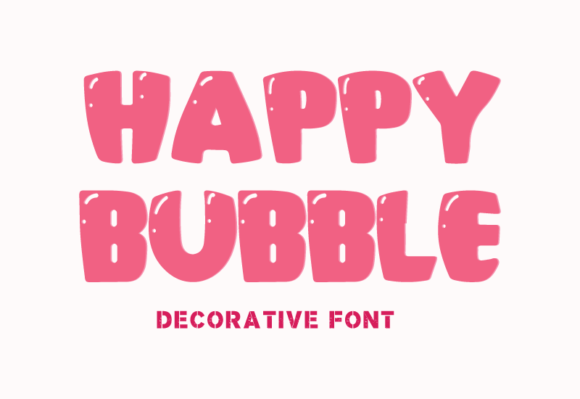
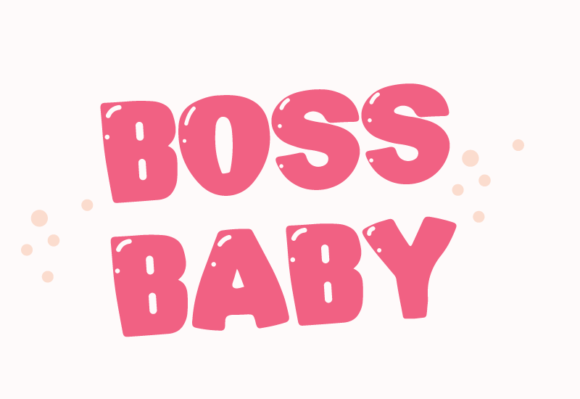
Designing doesn’t always have to be about sharp, corporate grids; sometimes a project demands pure, unadulterated fun to truly connect with an audience. Happy Bubble is exactly the kind of tool I reach for when I want to break the mold and bring a massive dose of joy to the artboard. Standing out as a wonderfully expressive Bubble Decorative Font, it instantly channels the carefree spirit of childhood. The letterforms completely abandon rigid, clinical structures, favoring delightful, rounded shapes that feel just like the exuberant, innocent scribbles of a child’s handwriting.
In a busy studio workflow, this typeface functions as an absolute powerhouse when building high-impact assets for a youthful demographic. The vibrant charm packed into every single character makes it an ideal anchor for kids’ product packaging, bright festive flyers, and playful social media banners. If your latest client brief requires a creative direction that prioritizes whimsy and cheer while keeping your layout entirely engaging, adding Happy Bubble to your toolkit will definitely get the celebration started.
2. Frozen Bubble Decorative Font
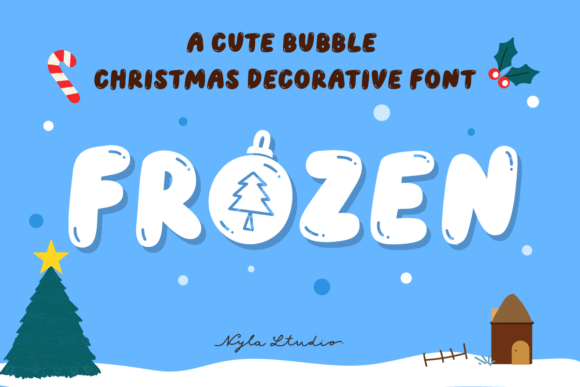
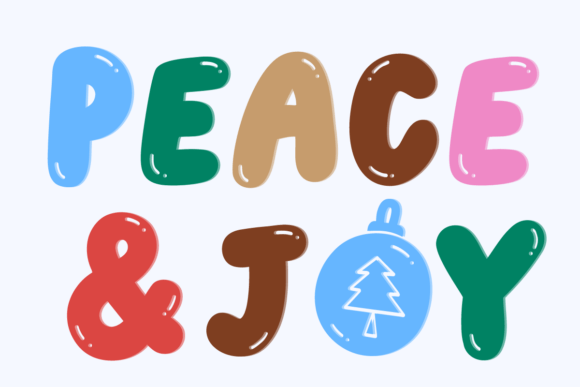
When the holiday season rolls around, or when a brief explicitly demands a heavy dose of nostalgic winter charm, standard display typefaces just won’t cut it. Frozen is a delightfully cute Bubble Decorative Font that brings an instant festive energy straight to your active artboard. It masterfully pairs thick, puffy contours with a cozy, soft-edged silhouette, making it an incredible asset for breaking up rigid layout grids and adding an organic, playful presence to seasonal headers.
In my everyday studio routine, this typeface functions as a total chameleon for custom merchandise and winter-themed print suites. I’ve found it performs beautifully on retro poster layouts, whimsical Christmas invitations, and die-cut stickers where text needs a bold, high-contrast weight to stand out. Whether you are typesetting a cozy greeting card, building out playful lifestyle quotes, or wrapping up retail packaging for apparel and holiday mugs, Frozen keeps your visual hierarchy engaging without losing an ounce of its charming personality.
3. Charm Bubble Decorative Font
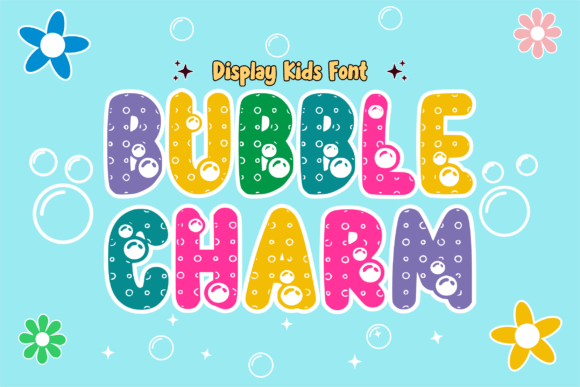
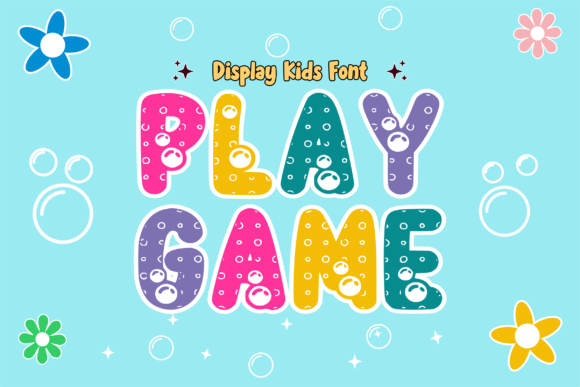
There is a common misconception that playful, children’s themed typography has to sacrifice legibility for the sake of being cute. That’s why dropping Charm into an active workspace is such a satisfying experience; it stands out as an exceptionally cheerful Bubble Decorative Font where every single character is distinctly pillowed and instantly recognizable. The letterforms expand beautifully on the screen, creating an immediate, high-contrast presence that allows you to pour your raw imagination directly onto the canvas without messing up your alignment.
From a practical standpoint, this typeface is a total lifesaver when you are jumping into the world of custom merchandise and physical print production. In my daily studio routine, it performs like an absolute champ for print-on-demand and sublimation designs—making it a perfect anchor for bold t-shirt graphics, custom mugs, and lifestyle tote bags. It carries just the right amount of animated weight to handle comic book titles or digital animations, keeping your visual hierarchy perfectly punchy and clean across both digital screens and tangible assets.
4. Birthday Bubble Decorative Font
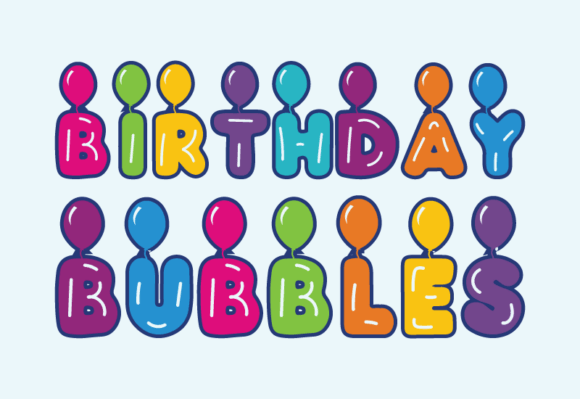
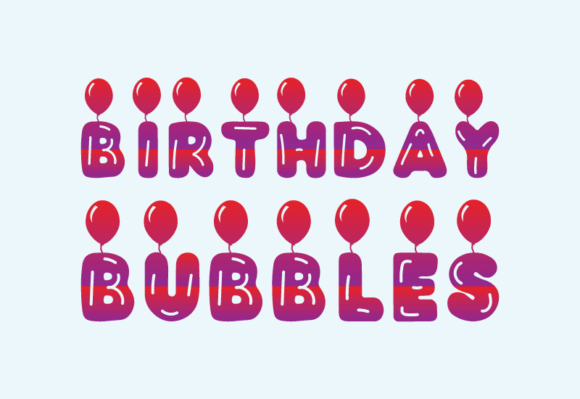
Getting a festive client brief right means finding a way to capture high energy without cluttering the canvas with endless graphic assets. That is exactly where Birthday Bubble comes into play. Standing out as an enchantingly distinct Bubble Decorative Font, this typeface commands immediate attention on the screen, instantly turning a straightforward text block into a vibrant visual masterpiece where every single letter feels like an independent celebration.
In my day-to-day studio routine, I’ve found this typeface to be a phenomenal asset for any layout that needs a heavy dose of celebratory charm. It works as a total powerhouse for modern birthday theme stationery, digital event graphics, and large-format party signage. By leaning into its unique, pillowed dimensions, you can easily maintain a crisp visual hierarchy while infusing a carefree, jubilant spirit that completely transforms your creative project.
5. Love Heart Bubble Decorative Font
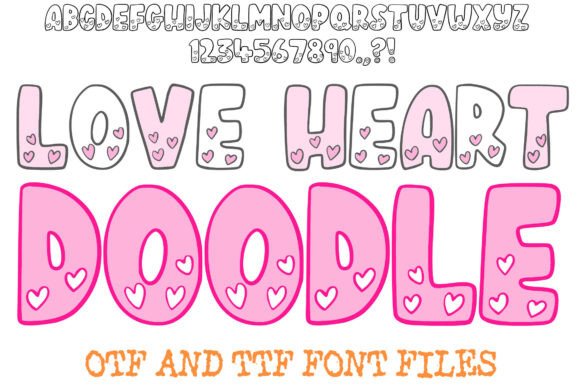
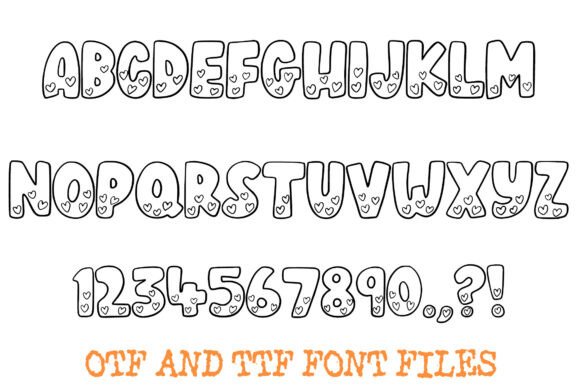
If you want to break away from predictable vector lines and inject a warm, hand-crafted burst of affection into your work, this typeface is an absolute gem. Love Heart functions beautifully as a uniquely expressive Bubble Decorative Font that brings an immediate, cozy texture straight to the artboard. It features bold, beautifully “puffy” outline characters, but the real magic is hidden on the inside, where every single letter and number is packed with a delicate scattering of tiny, hand-drawn hearts that give the text blocks a sweet, artisanal feel.
In my own studio workflow, I always appreciate finding display faces that offer this level of creative flexibility. This Bubble Decorative Font captures a nostalgic, “doodled-in-a-notebook” style that is absolutely perfect for seasonal Valentine’s Day layouts, romantic wedding stationery, and custom party decor. Because it utilizes a clever hollow design, you can leave the paths as clean, minimalist outlines or easily color-fill the tiny interior hearts to match a client’s specific palette, ensuring your typography stays completely engaging and unique.
6. Sugar Bubble Decorative Font
Finding a display face that hits the sweet spot between being unapologetically cute and genuinely charming is harder than it looks on a blank artboard. That is where Sugar Bubble enters the mix. It serves as an incredibly sweet Bubble Decorative Font that brings a lighthearted, playful energy to your workspace without cluttering up your compositions. Its rounded, pillowed contours feel completely natural, instantly softening any rigid layout with its friendly and inviting letterforms.
In my day-to-day studio routine, I love keeping this typeface handy for quick-turnaround creative projects that need a soft, accessible edge. It functions as a total chameleon on the canvas, handling everything from bright digital social headers to whimsical stickers, children’s event branding, and casual logo designs like an absolute champ. If your latest client brief calls for a typography layout that feels approachable and full of personality while keeping a crisp visual hierarchy, Sugar Bubble is an incredibly reliable asset to drop into your active toolkit.
7. Valentine Bubble Decorative Font
When February rolls around—or whenever a brief calls for a soft, affectionate touch—sterile corporate vectors are the first things I throw out the window. That is precisely where Valentine Bubble steps in to save the creative day. Operating as a wonderfully expressive Bubble Decorative Font, it mimics a cozy, hand-drawn warmth that instantly transforms a blank canvas, trading stiff geometry for pillowed, friendly letterforms that feel deeply personal and incredibly inviting.
In my day-to-day studio workflow, I’ve found that this typeface behaves like an absolute chameleon for both digital grids and physical merchandise. It has a beautifully relaxed weight that works perfectly for personal digital stationery, lifestyle diaries, and intimate greeting cards, yet it scales up smoothly to anchor bold social media banners, custom apparel prints, and retail mugs. If your latest design layout requires a sweet, approachable aesthetic while maintaining a crisp visual hierarchy, dropping Valentine Bubble onto your artboard is a brilliant move.
8. Mermaid Bubble Decorative Font
There’s nothing quite like dropping a display face onto your canvas that tells a complete, immersive story entirely through its vector paths. Mermaid Bubble does exactly that, stepping up as an incredibly unique Bubble Decorative Font inspired by the depths of the ocean. Instead of just relying on standard puffy silhouettes, it features a distinct, built-in scale texture beautifully woven across every character, giving your primary headline text a brilliant layer of tactile depth and a rich fantasy edge.
In my active studio workflow, I’ve found this font to be a total lifesaver when working on themed client apparel or high-energy storytelling projects. It’s an exceptional choice for print-on-demand layouts, performing beautifully on sublimation t-shirts, custom mugs, and tote bags where you need a bold, self-contained graphic punch. Beyond physical products, it carries just the right amount of whimsical weight to anchor animated title cards or comic book headers, keeping your visual hierarchy perfectly crisp and engaging.
9. Doodlepals Regular Bubble Decorative Font
If you’re tired of flawlessly clean vector lines and want to inject a raw, analog energy into your composition, this next pick is an absolute blast to work with. Doodlepals Regular stands out as an incredibly high-impact Bubble Decorative Font that looks like it was sketched directly onto the artboard with a thick, juicy permanent marker. It pairs ultra-bold, puffy letterforms with a dense, scribbled interior fill and heavy outlines, creating a purposeful baseline wobble and a lively visual rhythm that instantly cuts through standard, predictable layouts.
In my own studio workflow, I treat this typeface as a pure display asset—it’s explicitly built for massive headlines, blocky logos, and punchy titles rather than blocks of body text. The tight character spacing and wide proportions give your words a heavy, inky presence that demands attention across social graphics, poster designs, or merchandise packaging. It successfully delivers that nostalgic, marker-drawn aesthetic while keeping your visual hierarchy completely unmistakable and bold at display sizes.
10. Bubble Gum Decorative Font
There are times when an artboard just feels a bit too rigid, and you need a typeface that drops all corporate seriousness to bring pure flavor and lightheartedness to the screen. Bubble Gum is an absolute treat to work with in these moments, acting as a wonderfully quirky Bubble Decorative Font that injects a burst of nostalgic joy into any layout. Its soft, rounded curves and charmingly eccentric letterforms completely break away from traditional grids, making it a stellar display option for turning standard text lines into eye-catching focal points.
In my everyday design workflow, I love keeping this beautiful display face in my back pocket for creative projects that need to pop off the page or screen. It functions like an absolute charm for custom sticker sheets, playful branding elements, and bold social media headers where you want your ideas to stand out instantly. The generous, puffy proportions keep the letters incredibly legible while maintaining a highly engaging visual hierarchy, ensuring your final composition stays both wildly creative and beautifully polished.
11. Dash Bubble Decorative Font
Finding a display face that perfectly captures a cozy, tactile craft vibe without looking messy can be a real challenge when sorting through digital vectors. Dash Bubble answers that call beautifully, standing out as a highly unique Bubble Decorative Font characterized by its clever, built-in dashed stitch line accent. It seamlessly wraps adorable, puffy letterforms in a custom embroidery aesthetic, instantly breaking up flat layout grids and bringing a warm, tactile charm directly to your header text.
In my own studio workflow, this font acts as a total go-to for craft-centric branding briefs, classroom printables, and whimsical children’s brand assets. The playful, stitched-letter geometry functions like an absolute charm on custom scrapbooking layouts, sewing-themed packaging, and DIY greeting cards where a sterile, machine-perfect font just wouldn’t fit the mood. Because the underlying bubble structure remains solid, it handles negative space beautifully and maintains a clean visual hierarchy, allowing you to add a lovely, handmade touch to your layouts while keeping your message completely punchy and legible.
12. Chewy Bubble Decorative Font
When you need maximum visual weight on the canvas without defaulting to blocky, aggressive industrial typefaces, leaning into an ultra-chunky aesthetic is the absolute best layout move. Chewy Bubble fits this bill perfectly, stepping up as an incredibly fun Bubble Decorative Font that feels beautifully plump and easy to work with. Its letterforms are boldly oversized and perfectly rounded, looking exactly like oversized bubbles floating across your artboard, which instantly gives your primary headers a vibrant, high-energy presence.
In my own studio workflow, what makes this particular typeface such a blast to deploy is the masterful balance between its smooth, carefully crafted curves and generous character spacing. It behaves as a total attention-grabber for high-impact posters, playful custom logos, and whimsical children’s book covers where a serious, tight font would completely kill the mood. Because the weight distribution is so intentionally thick and cheerful, it holds down the visual hierarchy beautifully, ensuring your main titles stay wildly interesting and impossible to look past.
13. Paw Bubble Decorative Font
There is nothing better than finding a display face that takes a familiar style and modifies it with an insanely clever, niche twist. Paw Bubble does precisely that, presenting an absolutely adorable Bubble Decorative Font that builds tiny, cute paw graphics directly into its soft, puffy letterforms. It trades strict geometric paths for a friendly, organic charm, making it a stellar option for transforming a standard header line into an instant, high-impact focal point for animal lovers.
In my own day-to-day studio workflow, this typeface is a total lifesaver when mapping out visual identities for pet shops, animal rescue campaigns, and whimsical children’s branding projects. It carries a beautifully rounded weight that functions like an absolute champ across large-scale event posters, custom pet apparel, and engaging social media graphics. The playful balance of the characters ensures that your layout holds its visual hierarchy beautifully while injecting a massive dose of joyful, friendly personality straight onto your active canvas.
14. Super Balloon Bubble Decorative Font
If you think you’ve seen every possible variation of puffy lettering, this next gem is going to completely change your mind. Adding a playful pattern inside an already bouncy silhouette is a brilliant layout trick, and Super Balloon executes it flawlessly as a delightfully joyous Bubble Decorative Font. Designed with a distinct, floating balloon theme that’s tailor-made for high-energy projects, its oversized characters are playfully adorned with built-in polka dots, giving your primary headers a rich layer of tactile depth and making your text blocks instantly eye-catching.
In my own creative workflow, I’ve found that this typeface behaves like an absolute powerhouse when a client brief calls for a vibrant, carefree aesthetic. It performs beautifully for custom merchandise and sublimation print layouts, serving as a perfect anchor for bold t-shirt designs, custom mugs, and lifestyle tote bags. Because its rounded geometry carries such a distinct, giggling demeanor, it also works spectacularly well for animated title cards or playful comic book headers, keeping your visual hierarchy completely clean while infusing your canvas with pure personality.
15. Bubble Decorative Font
There is something incredibly satisfying about a display face that takes a literal approach to its name and pulls it off with absolute graphical perfection. If you are hunting for a foundational Bubble Decorative Font that brings a literal, dimensional pop to your workspace, this self-titled masterclass is exactly what you need. It pairs ultra-puffy, hand-drawn letterforms with clean outline strokes and brilliant internal vector highlights that mimic light reflecting off actual soap bubbles, instantly injecting a gorgeous, cartoon-like charm into your primary headers.
In my own day-to-day creative routine, this typeface behaves like an absolute workhorse for any layout that needs a heavy dose of childhood nostalgia and imaginative flair. The exaggerated, squishy curves handle negative space beautifully, making it an exceptional choice for bold toy packaging, whimsical children’s book titles, educational worksheets, and high-energy YouTube channel banners. Because it maintains a thick outline structure, it guarantees that your composition holds a rock-solid visual hierarchy, giving you an eye-catching typography option that literally pops right off the screen or page.
16. Round Bubble Decorative Font
Merging a structured, boxy framework with a soft, rounded aesthetic sounds like a total design contradiction, but that exact contrast is why this next asset works so beautifully on the canvas. Round Bubble steps onto the artboard as an incredibly eye-catching Bubble Decorative Font that plays with form in a completely fresh way. Instead of relying purely on standard circular shapes, it utilizes unique, box-shaped letterforms with softened edges, creating a simple yet bold silhouette that instantly injects a dose of modern whimsy into your primary headers.
In my own studio workflow, I love turning to this particular display face when a layout needs a playful punch but still requires a clean, blocky alignment to fit the grid. It acts as a brilliant typographical anchor for high-energy digital content, whimsical poster layouts, toy packaging, and custom merch designs where you want your text to pop without feeling messy. The thick, structured geometric weight ensures that despite its cute and friendly personality, your visual hierarchy remains rock-solid and beautifully legible across both mobile screens and physical print pieces.
17. Paint Bubble Decorative Font
Bridging the gap between raw, urban street culture and polished digital design grids is an absolute obsession of mine lately. Paint Bubble drops onto the artboard with an unmistakable graffiti aesthetic, proving that a Bubble Decorative Font can have a serious, stylized edge. Featuring thick, high-impact strokes and a fun collection of built-in ligatures and alternate characters, it gives you just enough vector variation to make your display text look completely hand-sprayed rather than procedurally generated.
In my own studio workflow, I’ve found this typeface to be an incredibly versatile asset, especially since its robust multilingual support covers over 100 languages for global branding projects. It commands attention effortlessly as a primary anchor for edgy logo configurations, cinematic movie titles, book covers, and fast-paced social media assets. While it easily carries short blocks of copy on its own, it functions beautifully when paired alongside a crisp geometric serif or a fluid lifestyle script, keeping your overall visual hierarchy flawlessly balanced and strikingly modern.
18. Flowers Bubble Decorative Font
There is a specific kind of warmth that only hand-lettered typography can bring to an artboard, especially when it is designed to radiate pure celebration. Flowers Bubble drops onto the canvas with an enchanting, festive cheer that immediately sets a cozy, joyful mood. Operating as a wonderfully adaptable Bubble Decorative Font, its soft, hand-crafted contours capture the essence of seasonal merriment, swapping clinical geometric paths for a fluid, organic rhythm that feels deeply personal and incredibly inviting.
In my own studio workflow, I always appreciate a display face that provides a bridge between specialized holiday themes and everyday design tasks. While it is an absolute lifesaver for lifting the holiday spirit across custom greeting cards, winter gift tags, and festive marketing campaigns, its underlying playful geometry makes it versatile enough to elevate almost any creative endeavor. Whether you are typesetting a cozy seasonal layout, building out whimsical brand identities, or crafting high-energy social media graphics, this exclusive typeface ensures your visual hierarchy remains flawlessly engaging while pouring warm joy straight onto the screen.
Conclusion
At the end of the day, a stellar Bubble Decorative Font succeeds by injecting a dose of pure nostalgia without messing up your grid. Whether you are building an edgy graffiti asset, an embroidered craft template, or a playful seasonal banner, these 18 curated picks offer incredible creative freedom. Drop them into your active canvas and watch your headers immediately come alive.